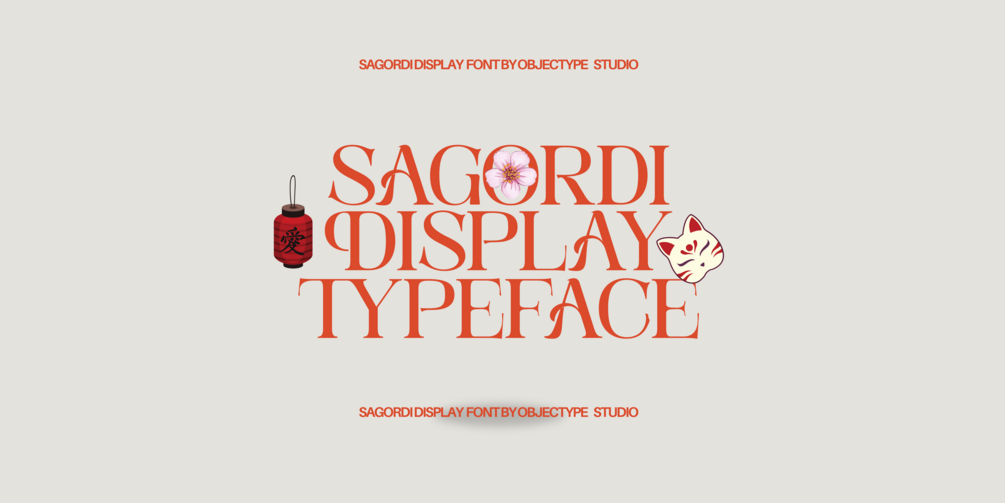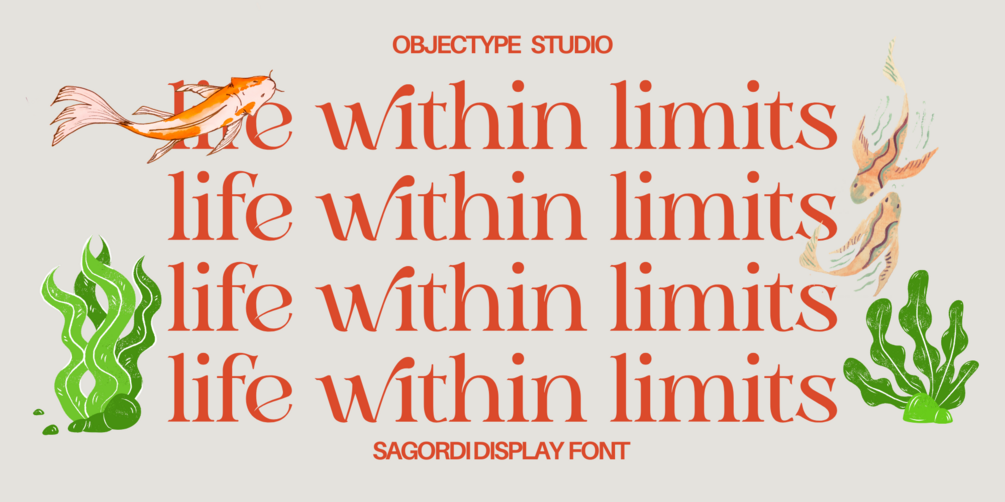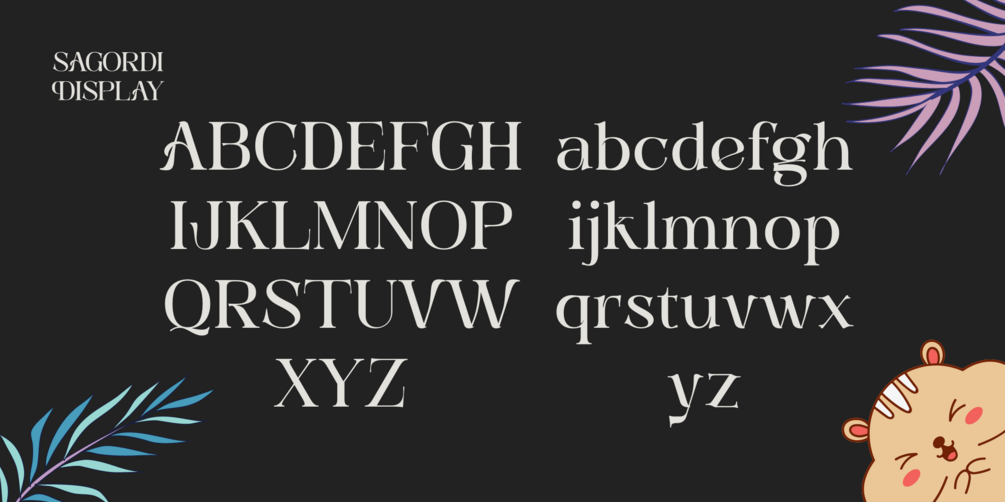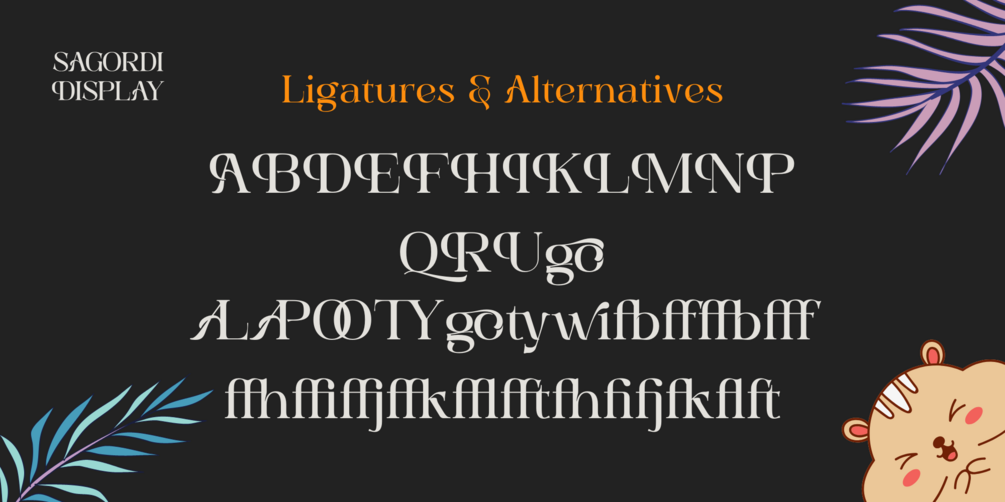
Sagordi: Futuristic Japanese-Inspired Font for Logos & Branding
🗾 Sagordi – Modern Japanese-Inspired Font with Full OpenType Power
Sagordi is a Japanese-inspired font that brings a strong 💪, minimalist 🧼, and futuristic 🌐 design vibe—perfect for contemporary projects with a clean aesthetic. With bold lines and geometric balance inspired by modern Japan, this font works beautifully in both Latin-based and stylized East-Asian-themed layouts.
• Standard & discretionary ligatures for smooth letter connections
• 🔠 Stylistic alternates to add variation and creative control
• 🆎 Contextual alternates that adjust characters depending on placement
• 🔡 Kerning for balanced spacing between letters
• 📚 Complete character set including uppercase, lowercase, numbers & symbols
Give your designs a touch of futuristic Japanese elegance with Sagordi, a font that’s both strong in style and rich in features.